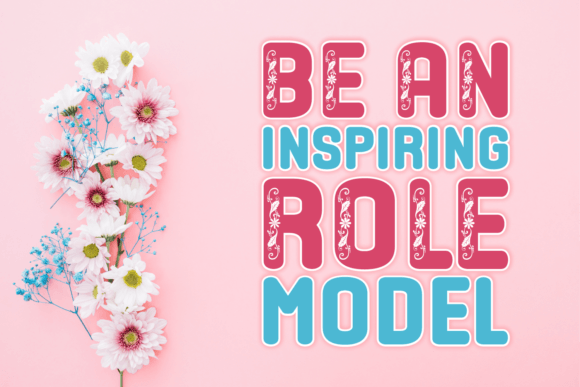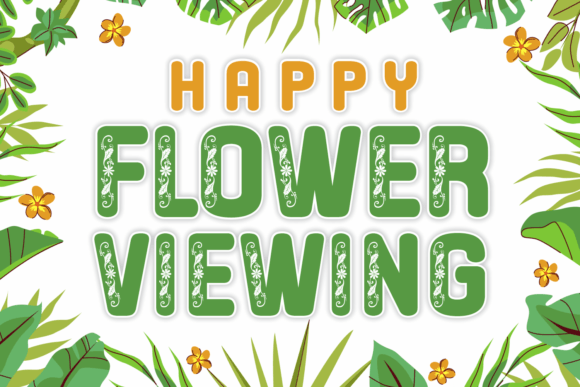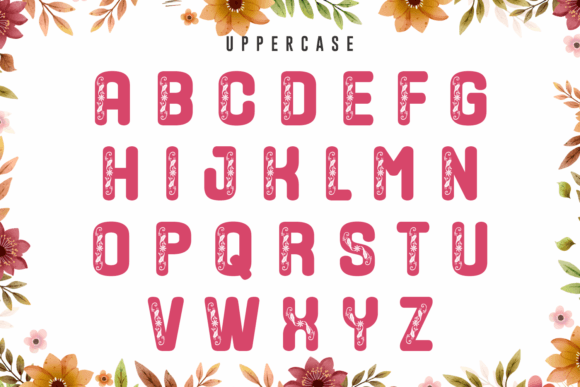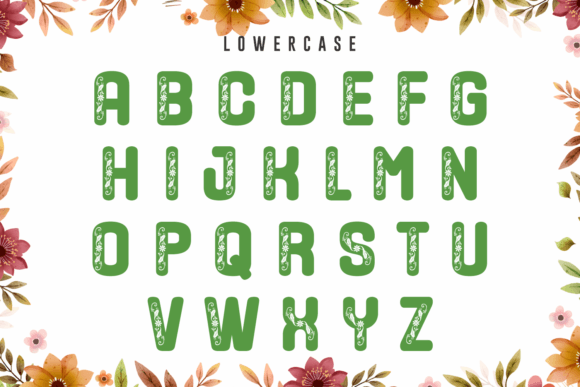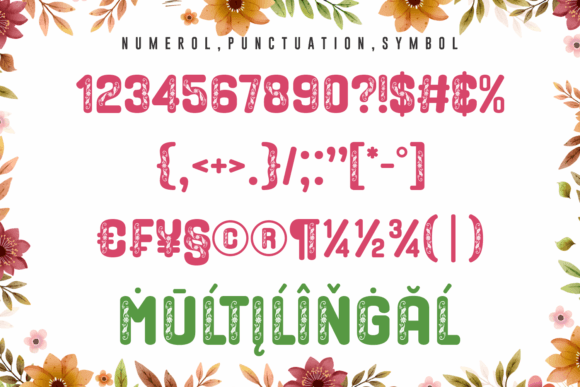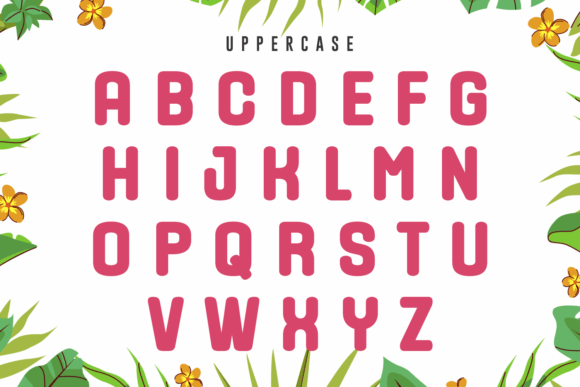
Introducing Flower Beauty Font: Elevate Your Designs with Elegance
Are you on the lookout for a font that can add a touch of sophistication and modernity to your designs? Look no further than the Flower Beauty Font. This lovely and clean decorative font is perfect for crafting stylish and modern designs that are sure to stand out. With its rounded edges and smooth curves, Flower Beauty Font brings a level of elegance and refinement to any project.
The Characteristics of Flower Beauty Font
Flower Beauty Font is characterized by its rounded edges and smooth curves, which give it a soft and approachable feel. This font is designed to be versatile, making it perfect for a wide range of applications, from logos and titles to invitations and more. Its subtle elegance ensures that your work will be taken to the next level, setting it apart from the rest.
Why Choose Flower Beauty Font?
There are many reasons why Flower Beauty Font is a top choice among designers and crafters. Here are just a few:
- Versatility: Flower Beauty Font is suitable for a wide range of projects, including logos, titles, invitations, and more.
- Elegance: The font’s subtle elegance adds a touch of sophistication to any design.
- Modernity: Flower Beauty Font has a modern and clean aesthetic that is perfect for creating stylish designs.
- Easy to Read: The font’s smooth curves and rounded edges make it easy to read, even at smaller sizes.
Uses for Flower Beauty Font
Flower Beauty Font is a versatile font that can be used in a variety of applications. Here are some ideas to get you started:
- Logos: Use Flower Beauty Font to create a stylish and modern logo for your business or brand.
- Titles: Add a touch of elegance to your titles and headings with Flower Beauty Font.
- Invitations: Create beautiful and sophisticated invitations for weddings, parties, and other special events.
- Branding: Use Flower Beauty Font to create a consistent brand identity across all of your marketing materials.
- Packaging: Add a touch of elegance to your product packaging with Flower Beauty Font.
Tips for Using Flower Beauty Font
Here are some tips for getting the most out of Flower Beauty Font:
- Pair it with Other Fonts: Flower Beauty Font pairs well with a variety of other fonts, so don’t be afraid to experiment with different combinations.
- Use it in Large Sizes: Flower Beauty Font is perfect for large titles and headings, so don’t be afraid to use it in big sizes.
- Experiment with Colors: Flower Beauty Font looks great in a variety of colors, so try experimenting with different color schemes to find the one that works best for your design.
Flower Beauty Font is a lovely and clean decorative font that is perfect for designers and crafters looking to add a touch of elegance and sophistication to their work. With its rounded edges and smooth curves, it’s sure to make your designs stand out. Its versatility makes it great for a wide range of applications, from logos and titles to invitations and more. So why wait? Download Flower Beauty Font today and start creating beautiful, stylish designs that are sure to impress.